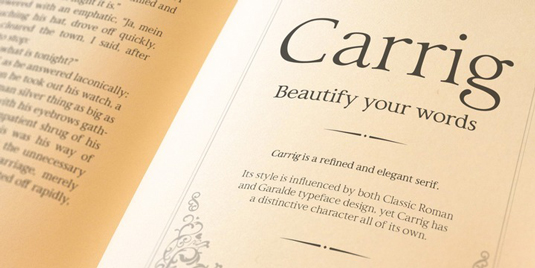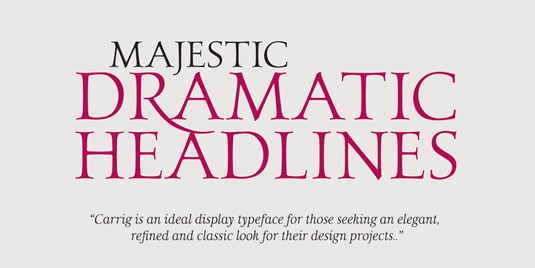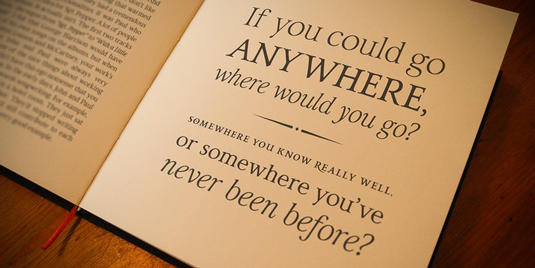
Font of the day: Carrig
Carrig by Paulo Goode
Carrig typeface started its life in 1998, when its creator, designer Paulo Goode started a new brand identity project for a lakeside hotel in County Kerry. "While visiting the hotel I made various sketches of the surroundings and upon returning to the studio, it was clear that my strongest ideas for the identity would be based on these freehand drawings," Goode explains on MyFonts. "I wanted a classic, rough, hand-drawn typeface to complement this style but at that time, the studio didn’t have anything suitable, so I decided to draw my own.
"I found a Trajan-esque typeface that I really liked the look of in an old calligraphy workbook. I set about creating my own version, creating a complete all caps typeface to use for the hotel's stationery. With carrig being the Gaelic word for rock, my new typeface was all the more appropriate as it had the appearance of letterforms that had been carved into stone and weathered by time."